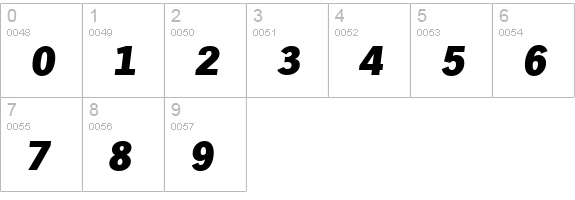
HamburgSerial-Heavy-Italic is a heavy, high-impact, italic variant in the HamburgSerial typeface family \xE2\x80\x94 well suited to high-impact headlines, posters, and display advertising.
HamburgSerial-Heavy-Italic is a bold and dynamic typeface that exudes sophistication and strength. Its sleek and modern design makes it perfect for headlines, titles, and branding materials that demand attention. The italicized version of this font adds a touch of elegance and flair to any project. What sets HamburgSerial-Heavy-Italic apart is not only its striking appearance, but also the fact that it is available for free download at FontsMarket.com. This means that you can easily access and use this high-quality font in your designs without any cost. Whether you're a professional designer looking to elevate your projects or an enthusiast experimenting with typography, HamburgSerial-Heavy-Italic is a versatile and visually appealing choice that won't break the bank. Download it today and add a touch of sophistication to your creations.